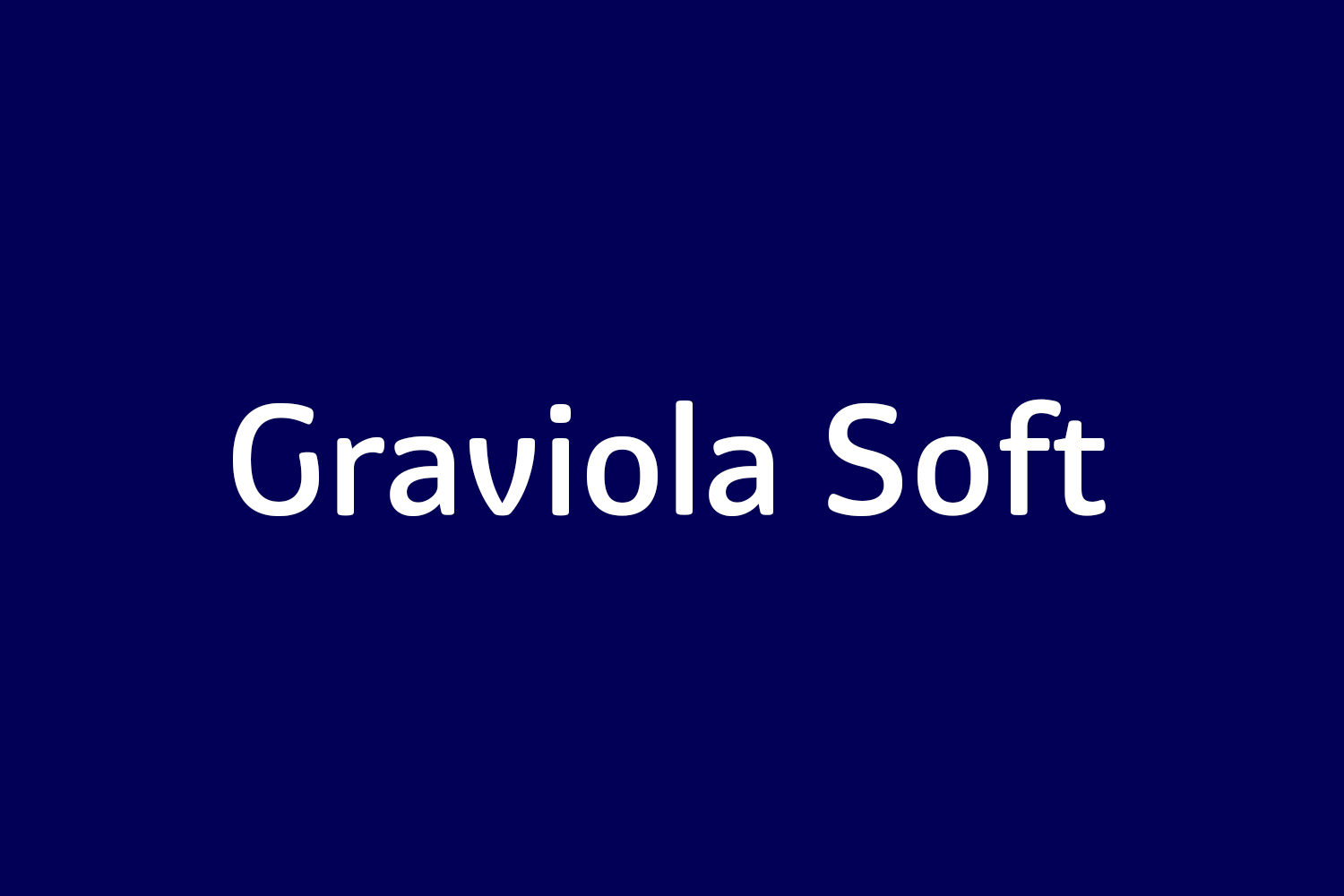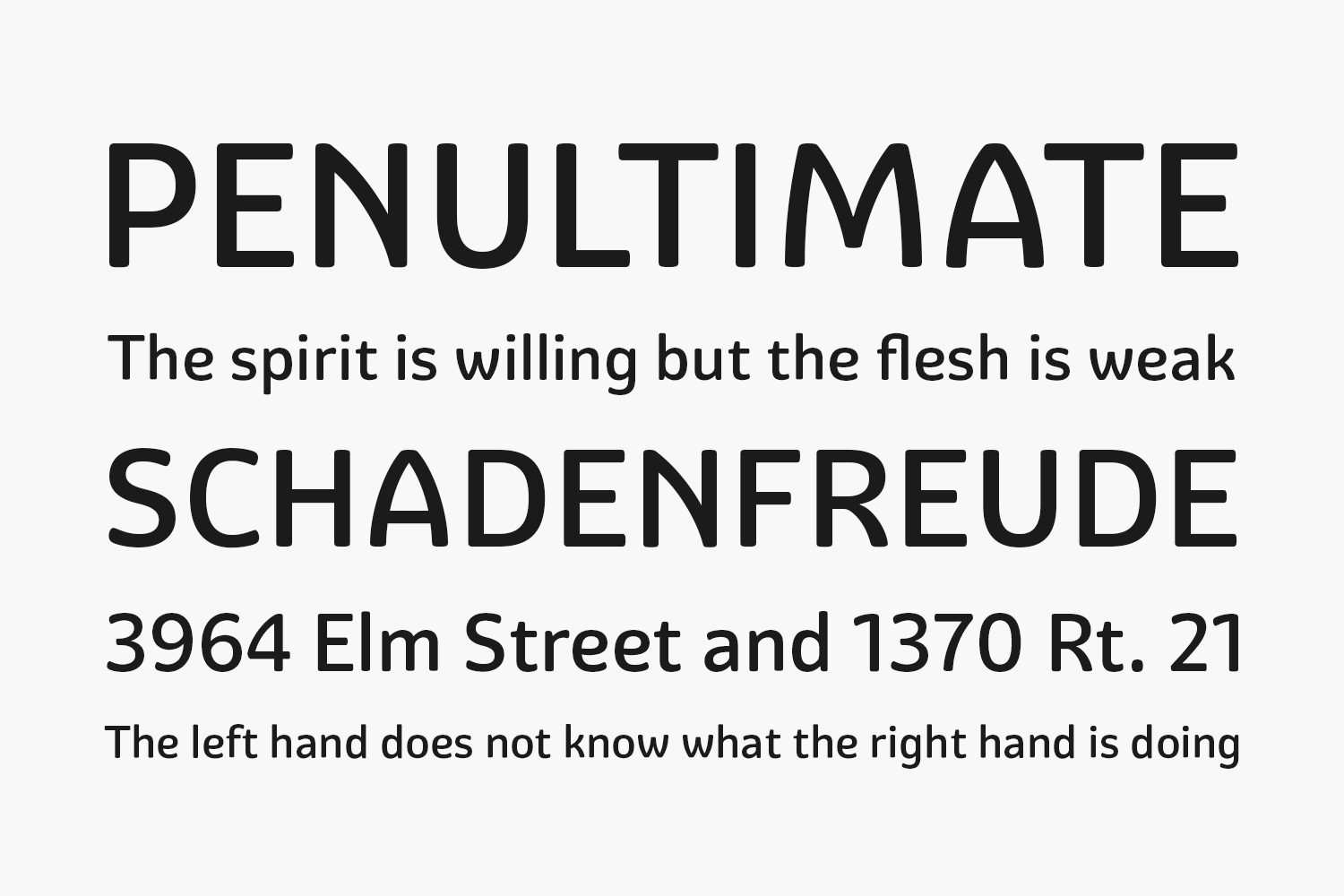
Graviola Soft Free Font Family consists of 16 fonts, from Thin to Black and matching italics. While the intermediate ones work for body text, the extreme weights look specially beautiful at display sizes. Each font contains 530+ glyphs, supporting more than 90 languages. Stylistic sets provide alternates in two groupings (a, v, w, y and G, g, &).
We think Graviola Soft works best on packaging, logotypes and headlines, but we’re eager to see what else you can do with it.
Designed by Harbor Type